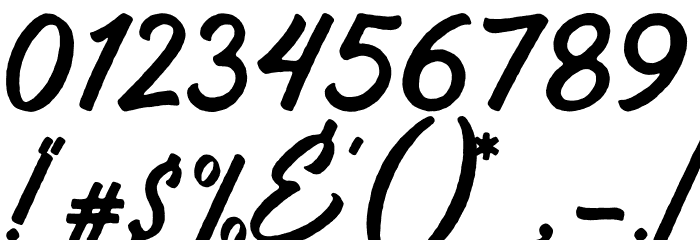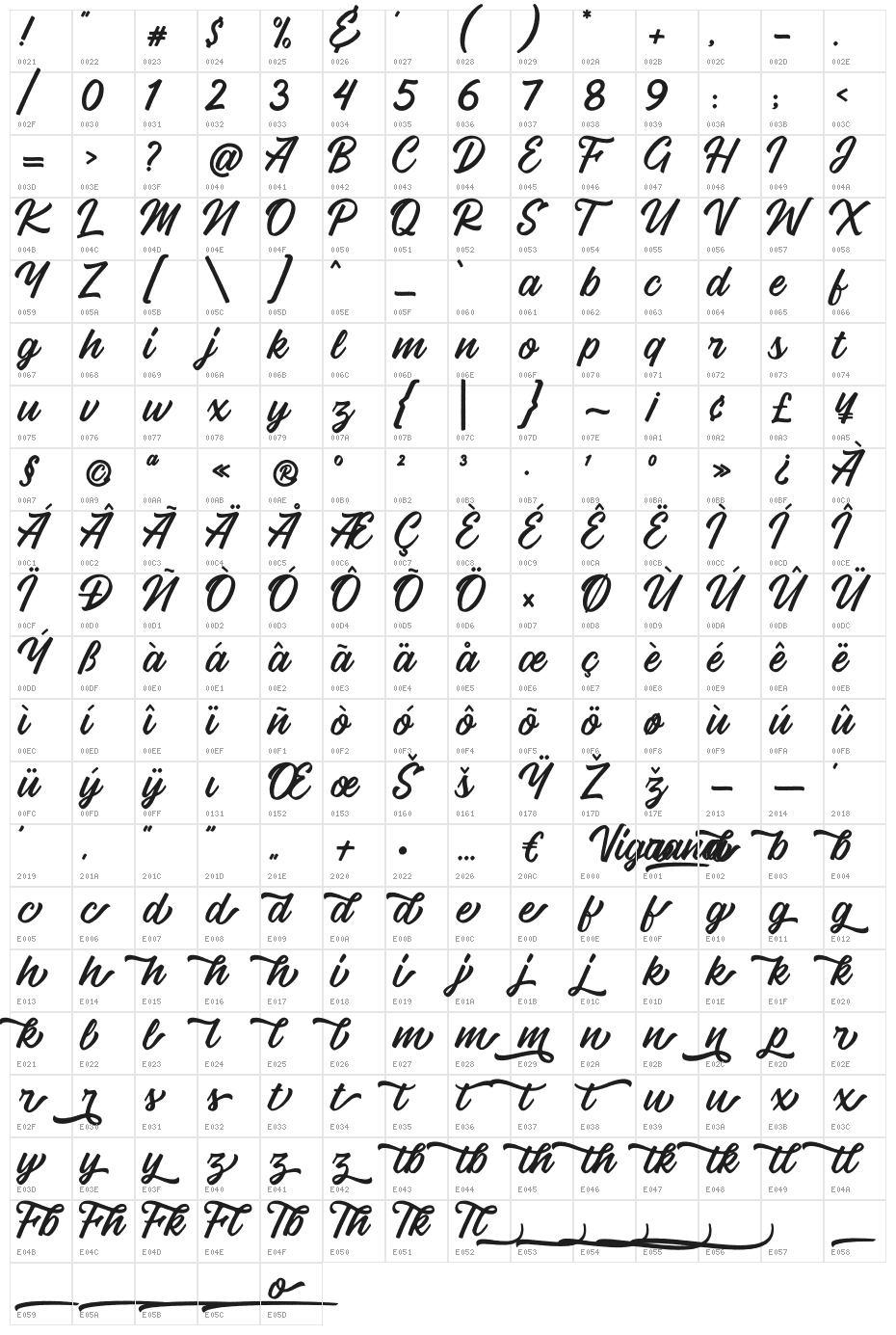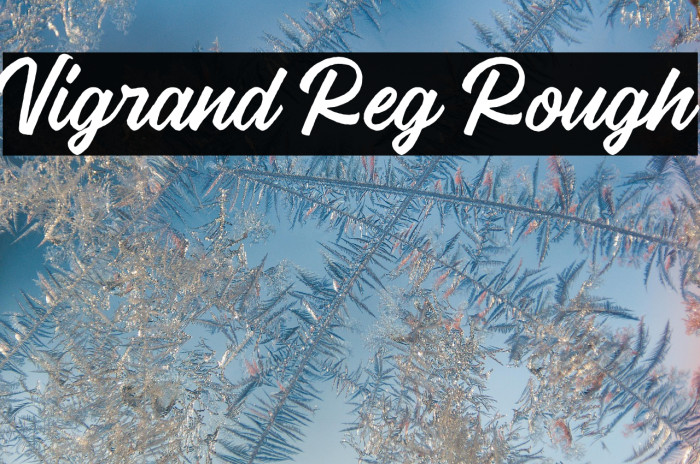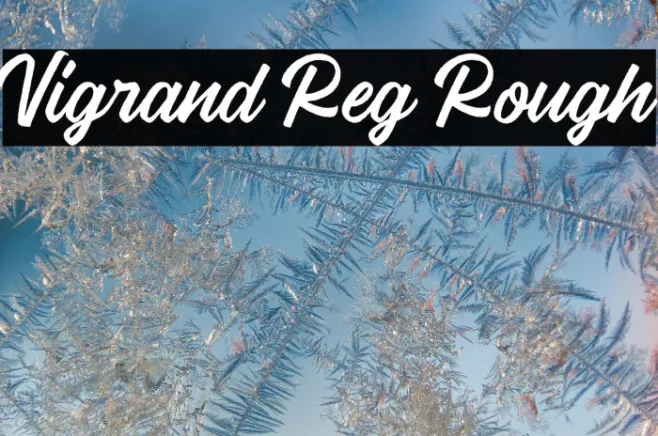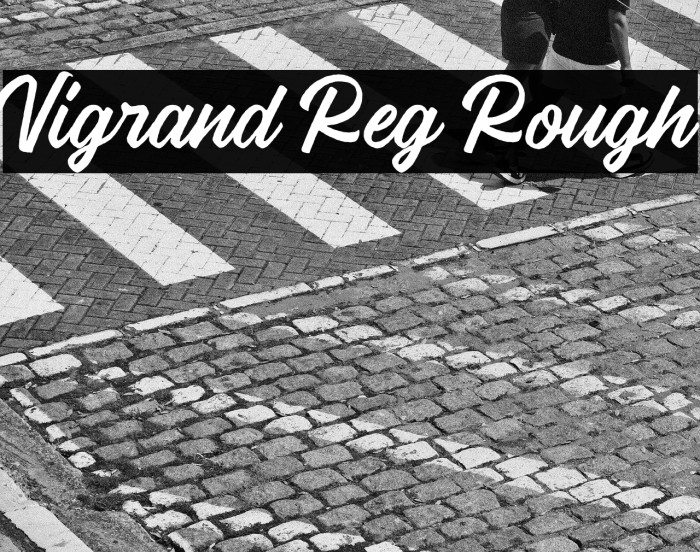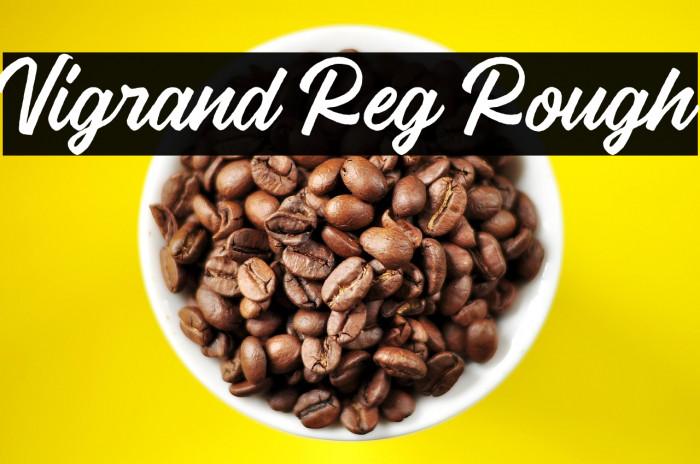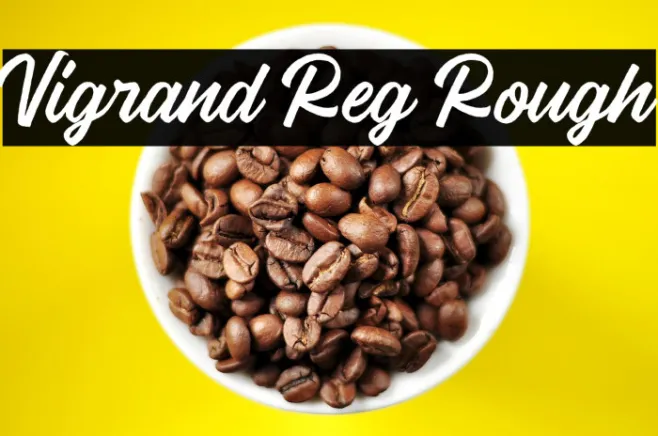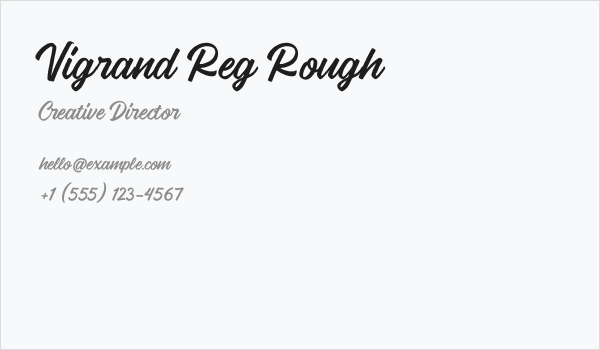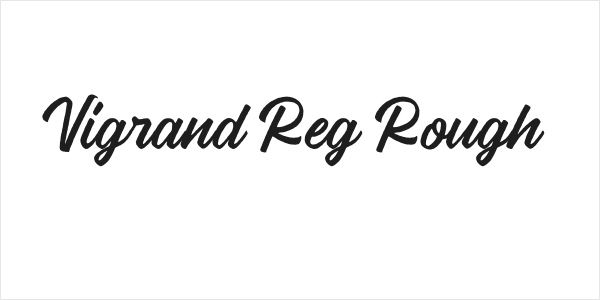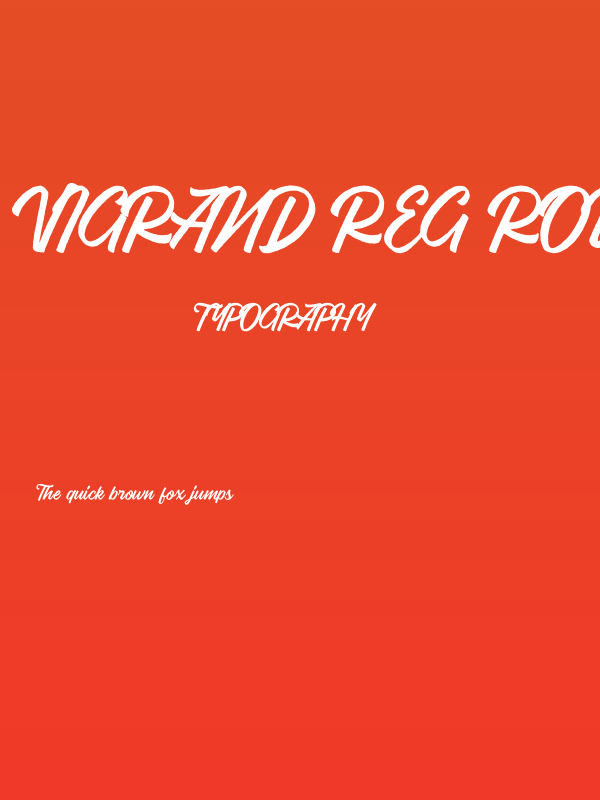
Vigrand Reg Rough Font
Vigrand Reg Rough Description
This font features a bold, cursive style with a rough texture that gives it a hand-drawn appearance. The uppercase and lowercase letters flow smoothly with a consistent slant, creating a dynamic and energetic look. The numbers and special characters maintain the same stylistic elements, ensuring uniformity across all glyphs. The rough edges add a touch of informality, making it suitable for creative and artistic projects. Its bold strokes and fluid curves make it stand out, while the rough texture adds a unique character.
| Proposed Projects | Ideal for branding, posters, invitations, and artistic designs. |